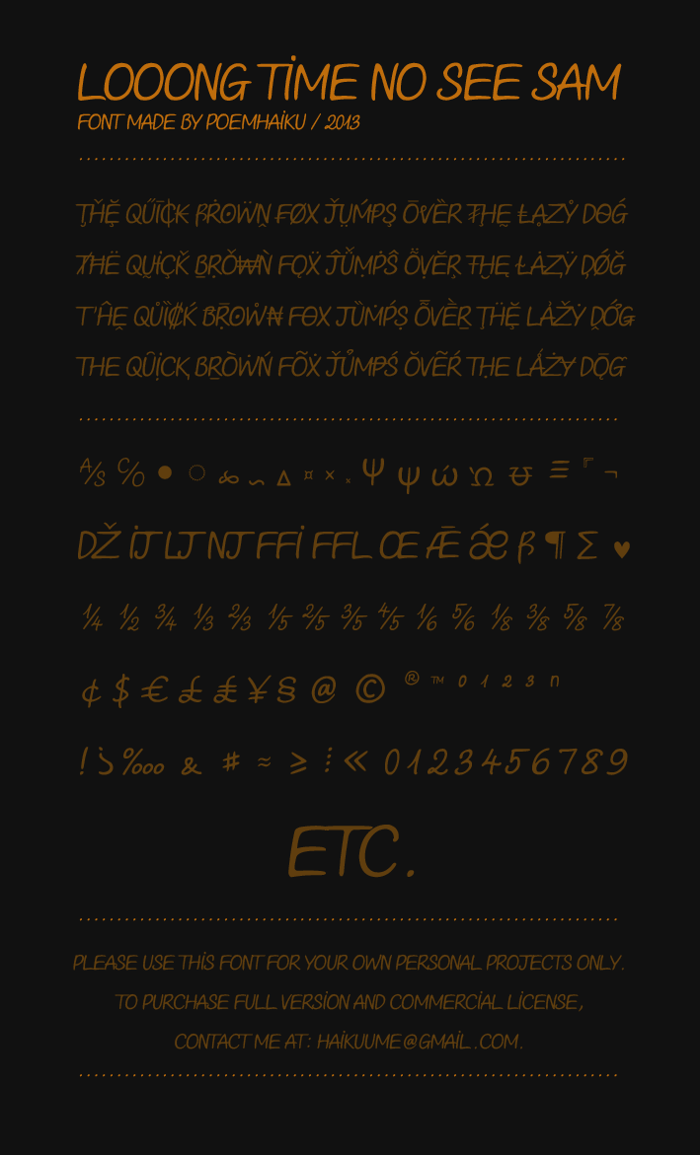
Looong time no see Sam Demo Font
This is a demo version of Looong time no see Sam font.
The capital looks so sexy with italic effect make it beautiful to use TQ